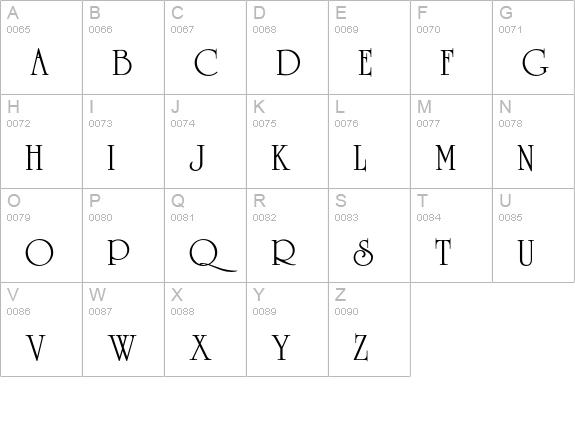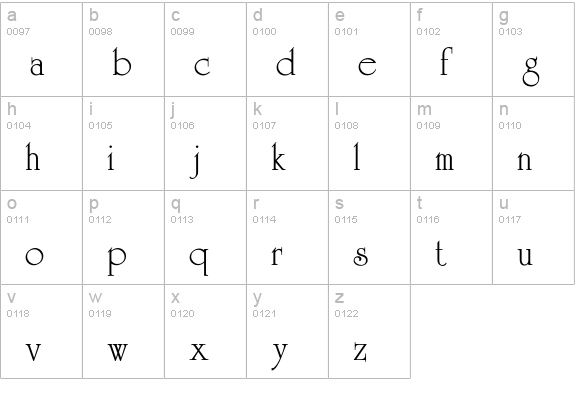
UniversityICG Font Details
UniversityICG font is a stunning typeface that exudes elegance and sophistication. With its clean lines and classic design, this font is perfect for any project that requires a touch of professionalism. Whether you are designing a logo, creating a brochure, or working on a website, UniversityICG font will elevate your designs to the next level. What sets UniversityICG font apart is not only its exquisite aesthetic but also the fact that it is available for free. That's right, this remarkable font can be downloaded at no cost from FontsMarket.com. This makes it an incredibly valuable resource for designers, students, and anyone looking to add a touch of class to their work without breaking the bank. The versatility of UniversityICG font is another reason why it has become a favorite among designers. Its timeless appeal makes it suitable for a wide range of applications, from formal invitations to corporate presentations. The carefully crafted letterforms ensure that every word you create with this font will be visually captivating and impactful. In addition to its beauty and accessibility, UniversityICG font also boasts excellent legibility. The carefully balanced proportions and clear, distinct letterforms ensure that your message will always be easily read and understood. This makes it an ideal choice for body text, headlines, and everything in between. To sum it up, UniversityICG font is a free typeface that combines elegance, versatility, and legibility. With its clean lines, classic design, and timeless appeal, it is the perfect choice for any project that requires a touch of sophistication. Download it now at FontsMarket.com and elevate your designs to new heights.